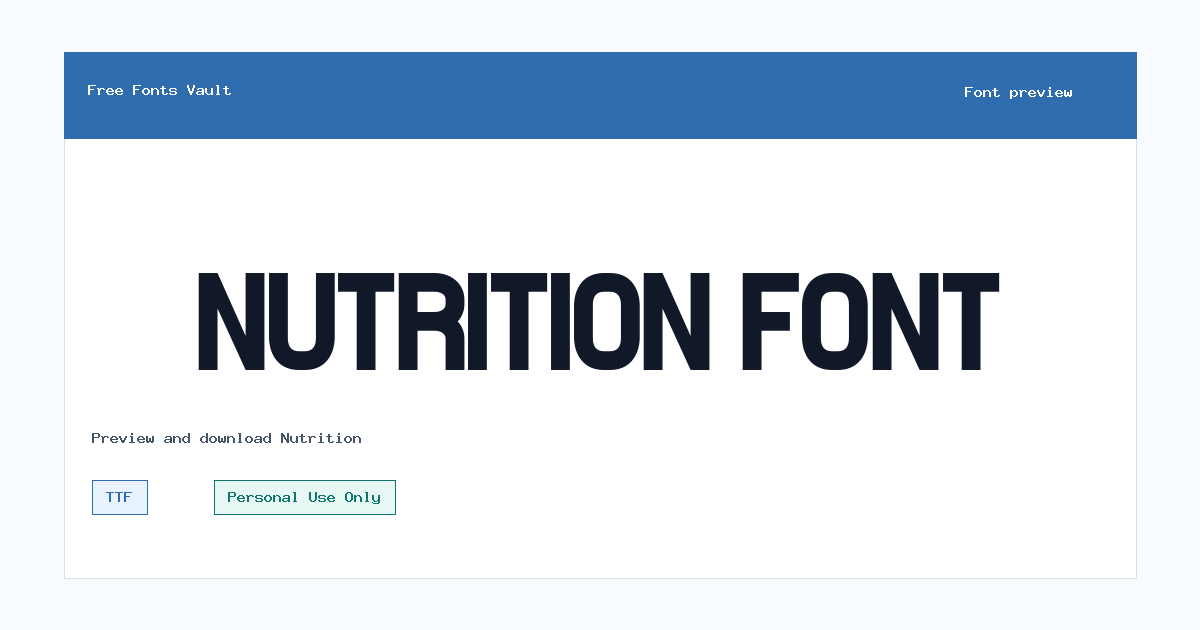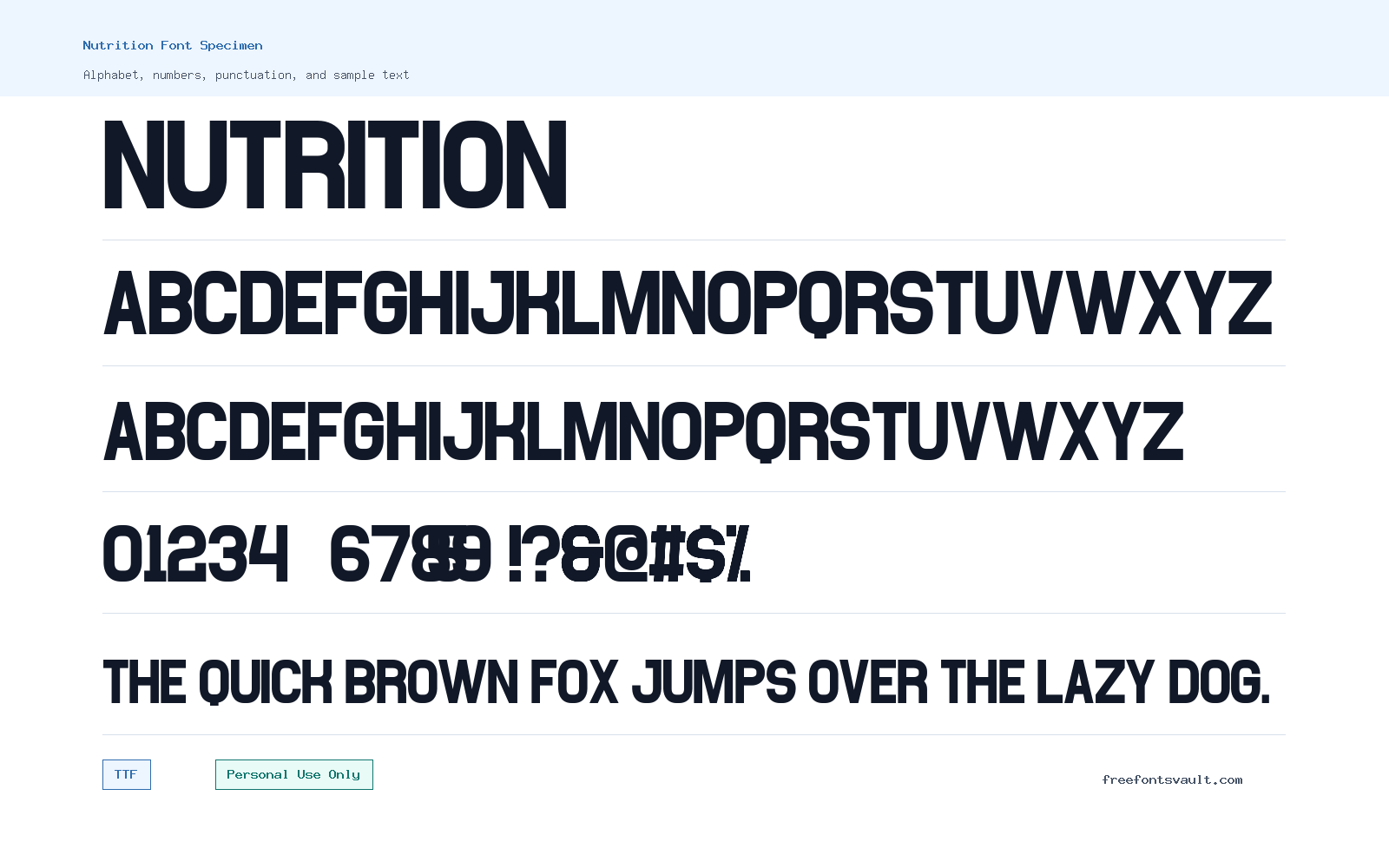
Nutrition
- Designer Muhammad Rizki Utomo
Nutrition is a clean sans serif font with a simple, modern feel. It works best when you need clear lettering for short design text, especially in previews, posters, logo concepts, packaging mockups, and social graphics.
About Nutrition Font
For visitors testing the font, start with the words you plan to use in the final design. Try brand names, menu titles, poster headings, product labels, or short web hero lines in the preview box. Sans serif fonts can look very different depending on spacing and letter combinations, so check letters with vertical strokes, rounded forms, and repeated characters before using it in a logo or headline. If you are building a full layout, pair Nutrition with a quieter body font and let Nutrition handle the main visual text.
- Regular sans serif style with a normal 400 weight
- Clean letterforms suited to headings, labels, and short display text
- Simple style that can be tested in logos, posters, packaging mockups, and web visuals
- Logo concepts and brand-name mockups
- Social media headers and quote cards
- Packaging labels and product presentation drafts
- Website hero text and UI mockups
- Menu headings, badges, and short promotional copy
Use Nutrition where the text is short and needs a clean sans serif look. It is a practical choice for titles, logo drafts, labels, and mockups, but you should test spacing carefully before final use. For longer paragraphs, pair it with a highly readable text face so the layout stays comfortable to read. A neutral serif, a plain humanist sans, or a simple grotesk-style body font can all work depending on the mood of the project. Keep the contrast clear: let Nutrition carry the headline or brand word, and use the pairing font for descriptions, captions, or body copy.
Who designed the Nutrition font?
Nutrition is credited to Muhammad Rizki Utomo.
What kind of projects is Nutrition good for?
Nutrition is best suited to short text such as logos, headings, posters, labels, packaging mockups, web hero text, and social graphics.
Is Nutrition good for body text?
It may work for short supporting text, but it is better to test readability first. For long paragraphs, pair it with a font designed for comfortable reading.
How should I pair Nutrition with other fonts?
Use Nutrition for the headline or main brand text, then pair it with a simple, readable body font. Avoid pairing it with another font that has a very similar voice, because the layout can feel flat or unclear.